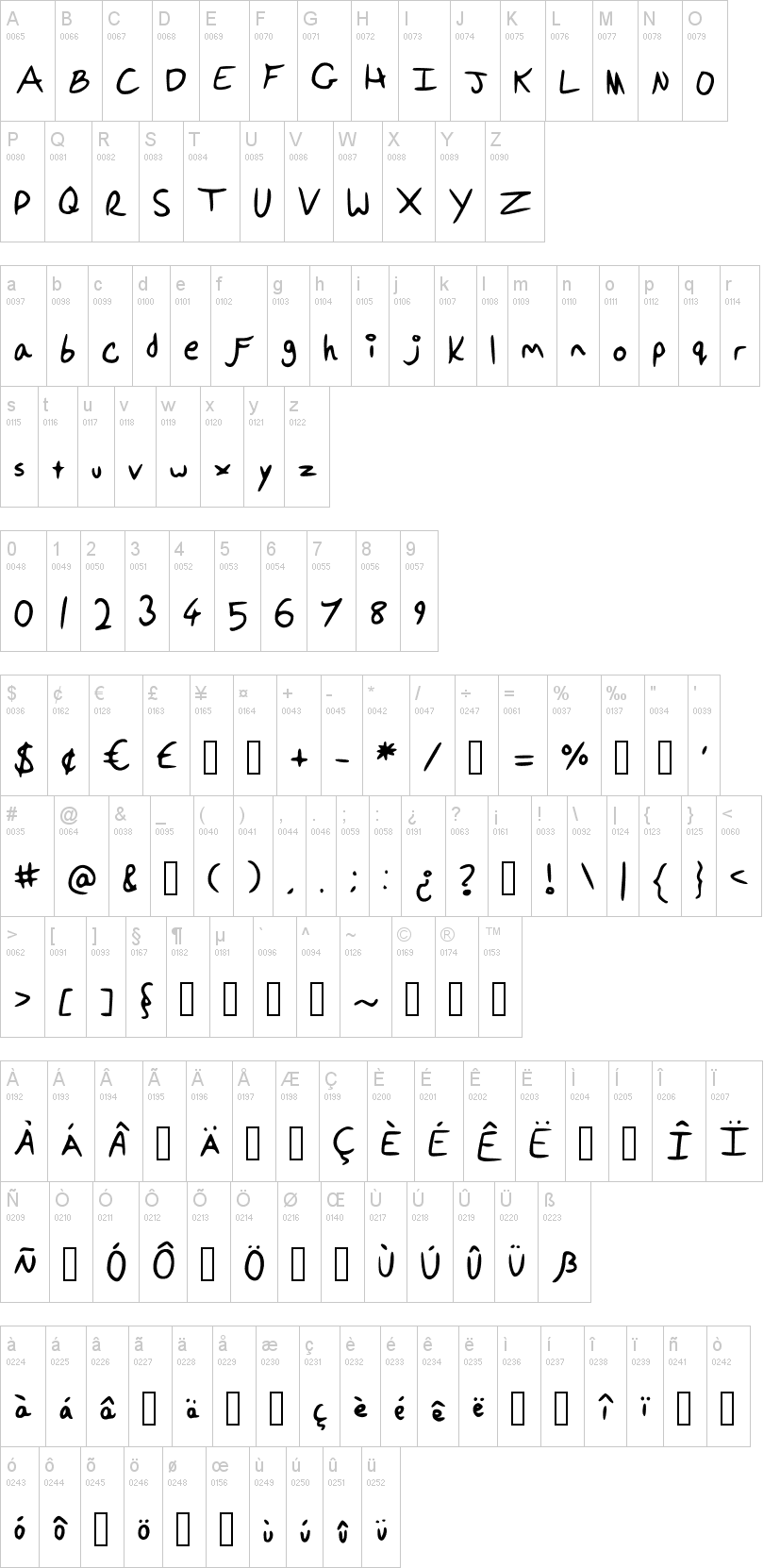
Шрифт Ponellas
This is my very first handwritten font; It's a bit small to work with, the f's are oddly high, and the "'s don't really work, but it's pretty good for a first try.